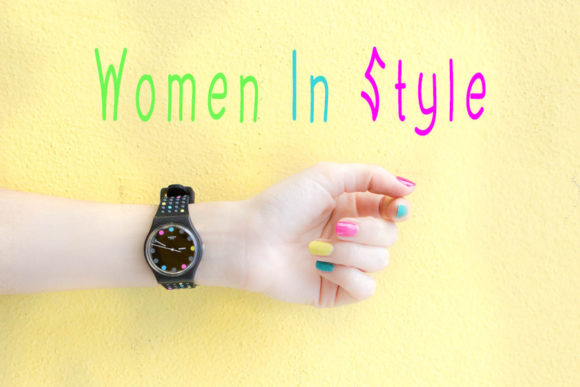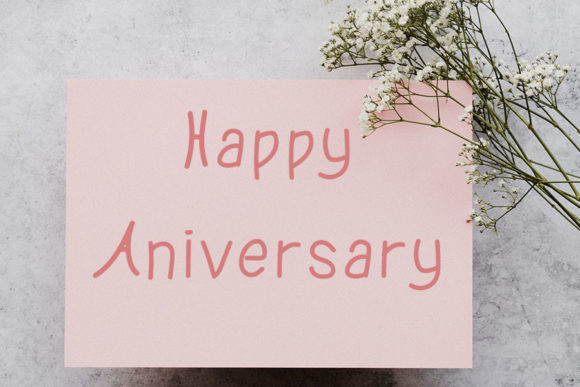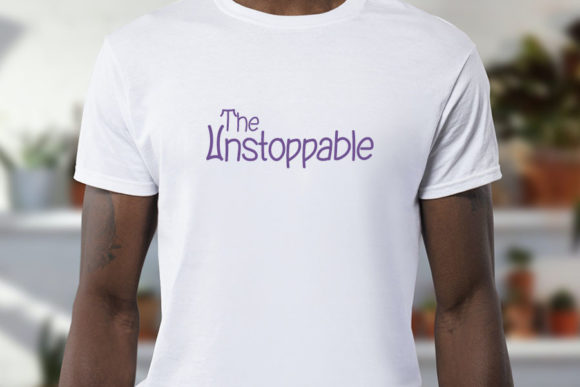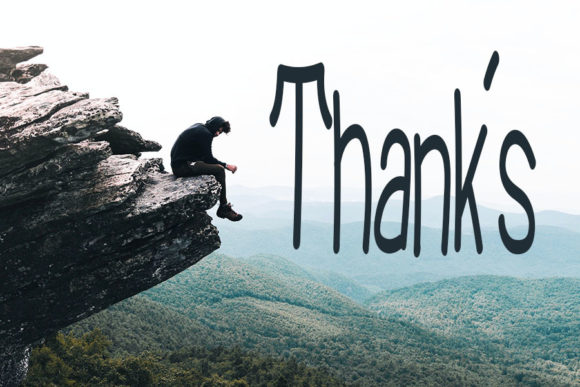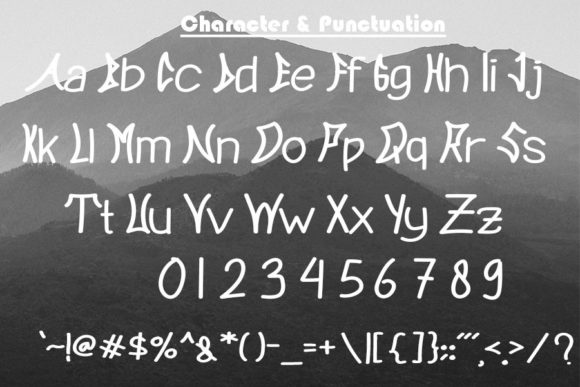
Introduction to Quadro Lovely Font
Have you ever been brainstorming a creative project and suddenly, the perfect font pops into your mind? For designers, this moment is a game-changer. It’s the spark that ignites a new idea, elevates a concept, and sets the tone for a visually stunning design. One such font that can bring this magic to your projects is the Quadro Lovely Font.
As a quirky and unique display font, Quadro Lovely Font is an absolute delight to work with. Its whimsical and hippie vibe is sure to brighten up any design, making it a valuable resource for designers looking to add a touch of personality to their projects. With its free download option and transparent background, you can confidently add this high-quality font to your design arsenal and expect amazing results.
Key Features of Quadro Lovely Font
- Unique characteristic: Elegant and playful design with a mix of modern and vintage elements
Honest Review: Quadro Lovely Font
I recently stumbled upon the Quadro Lovely Font while searching for a design resource to elevate my creative project. I must say, I was impressed with its high quality and versatility.
Here’s what works well:
- ✨ The transparent background allows for seamless integration with various design elements.
- ✨ The font’s playful and elegant design makes it perfect for a wide range of creative projects.
- ⚠️ The font may not be suitable for formal or professional projects, as it’s more geared towards creative and whimsical designs.
- ⚠️ Some users may find the font’s size and spacing a bit inconsistent, which can affect readability.
Overall, I’m quite impressed with the Quadro Lovely Font. Its unique design and high quality make it an excellent addition to any designer’s toolkit. While it may have some limitations, I believe it’s a great resource for designers working on creative projects.
How to Use Quadro Lovely Font
The Quadro Lovely Font is a high-quality design resource perfect for any creative project. With its unique and elegant style, it’s ideal for adding a touch of sophistication to your designs.
To get the most out of the Quadro Lovely Font, experiment with different font sizes, colors, and styles. You can also combine it with other design elements to create a unique look.
The Quadro Lovely Font is perfect for creating logos, business cards, invitations, and other design projects that require a touch of elegance. Its high-quality design makes it ideal for use in both personal and professional projects.
Great Vibes Font is a high-quality, elegant script font with a unique and stylish feel. It’s perfect for creative projects that require a touch of sophistication and elegance, such as wedding invitations, branding, and packaging design.